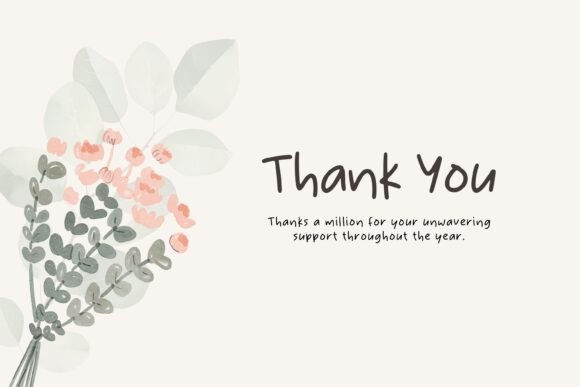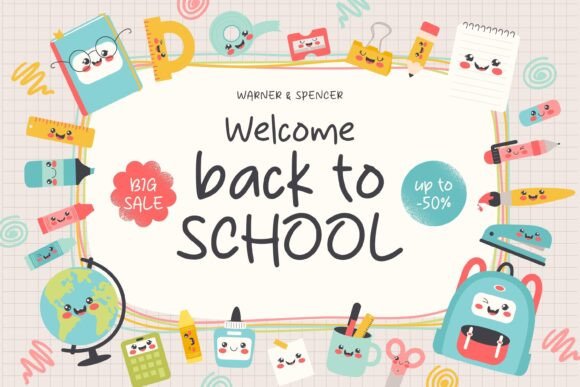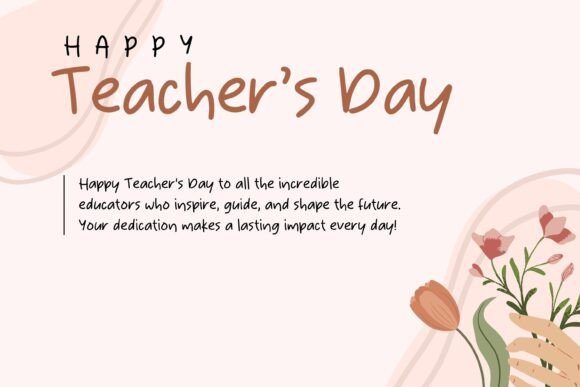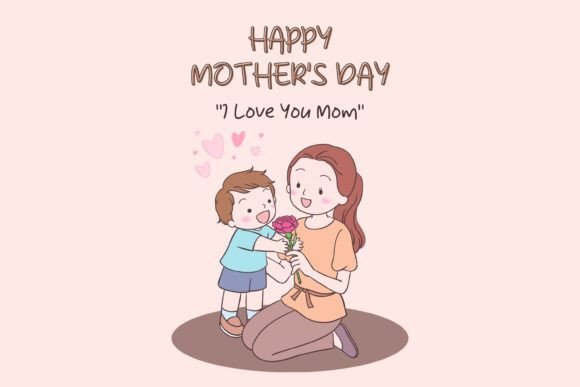
Gengshi Font: Elevate Your Designs with Authentic Handwritten Style
In the world of typography, few fonts capture the essence of natural, handwritten strokes as beautifully as the Gengshi Font. This stylish, elegant script is designed to mimic the authentic flow and imperfections of handwriting, making it an ideal choice for designers, crafters, and anyone looking to add a personal touch to their projects. Whether you’re creating notes, invitations, branding materials, or simply want to add some flair to your digital designs, Gengshi Handwriting Font is the perfect companion.
The Charm of Gengshi Handwriting Font
Gengshi Font stands out for its smooth, flowing lines and casual elegance. Its unique charm lies in its ability to convey a sense of warmth and personality, reminiscent of handwritten notes and letters. Unlike more formal fonts, Gengshi’s natural look and feel bring a level of approachability and intimacy to any design, making it perfect for:
- Notes and journals: Add a personal touch to your notes and journals with Gengshi’s authentic handwritten style.
- Creative projects: Bring your creative projects to life with Gengshi’s unique and expressive font.
- Invitations and announcements: Make your invitations and announcements stand out with Gengshi’s elegant and sophisticated script.
- Branding materials: Add a touch of personality to your branding materials, such as logos, business cards, and letterheads.
Key Features of Gengshi Font
Gengshi Handwriting Font boasts several key features that make it a versatile and stylish choice for designers and crafters:
- Smooth, flowing lines: Gengshi’s smooth lines and curves create a fluid, natural look that’s reminiscent of authentic handwriting.
- Casual elegance: The font’s casual elegance makes it perfect for a wide range of design applications, from formal to informal.
- Authentic handwritten strokes: Gengshi’s unique strokes and imperfections mimic the authentic look and feel of handwriting.
- Warm and personal: The font’s warm and personal touch adds a level of approachability and intimacy to any design.
Tips for Using Gengshi Font
To get the most out of Gengshi Handwriting Font, here are some tips for using it in your designs:
- Pair with complementary fonts: Pair Gengshi with complementary fonts to create visual interest and hierarchy in your designs.
- Experiment with colors: Try out different colors and textures to add depth and personality to your designs.
- Use for emphasis: Use Gengshi to add emphasis to specific elements in your design, such as headings or titles.
- Keep it simple: Don’t be afraid to keep your design simple and clean, letting Gengshi’s natural beauty shine through.
Who Can Benefit from Gengshi Font?
Gengshi Handwriting Font is a versatile font that can benefit a wide range of designers, crafters, and individuals, including:
- Graphic designers: Add a personal touch to your designs and make them stand out with Gengshi’s unique font.
- Crafters: Use Gengshi to add a handmade touch to your craft projects, such as invitations, cards, and scrapbooking.
- Small business owners: Use Gengshi to add a personal touch to your branding materials and marketing collateral.
- Artists and illustrators: Incorporate Gengshi into your artwork and illustrations to add a touch of elegance and sophistication.
In conclusion, Gengshi Handwriting Font is a stylish, natural-looking script that’s perfect for adding a personal touch to any design. Its smooth, flowing lines and casual elegance make it ideal for a wide range of applications, from notes and creative projects to branding materials and invitations. With its authentic handwritten strokes and warm, personal touch, Gengshi Font is sure to elevate your designs and make them stand out.